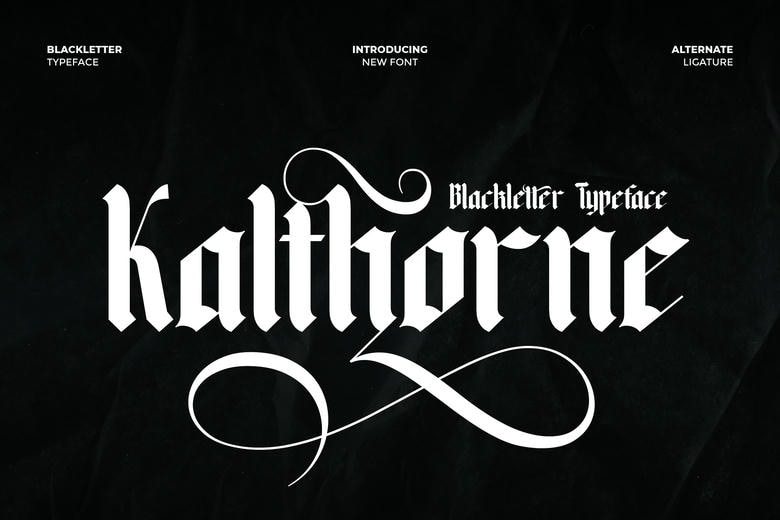
Kalthorne Font
Kalthorne is a confident and outspoken Blackletter typeface which carries the essence of the strong, traditional and artistic. With its sharp edges, complex lines and graceful swashes, it combines traditional gothicism with a certain modern taste. Kalthorne is great in logos, tattoos, band posters, apparel, packaging, and vintage-themed projects, and he commands and gives a classic look to anything he does.
Kalthorne Blackletter Font